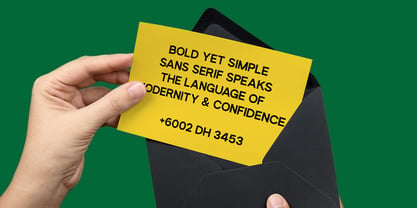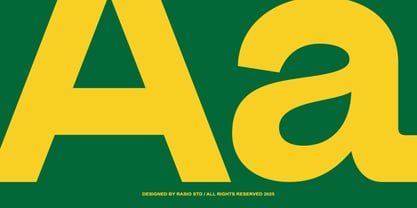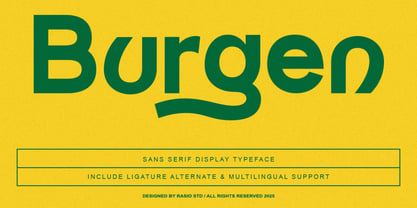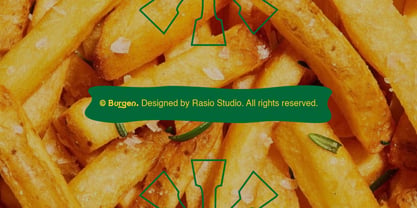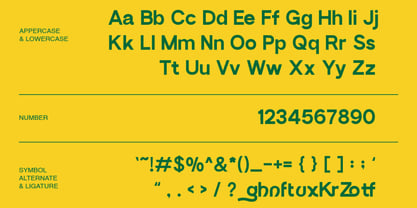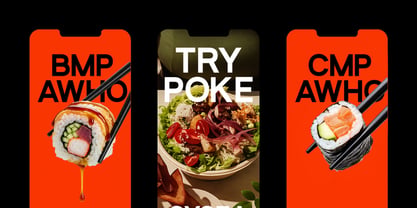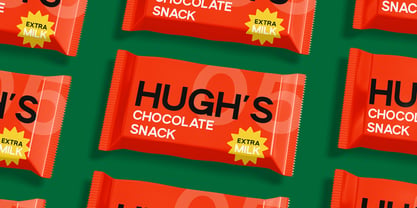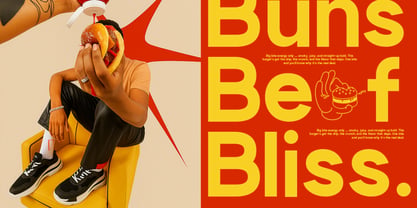
Burgen
by Rasio Studio
The Burgen Font Family was designed by Fajar Indra and published by Rasio Studio. Burgen contains 1 styles. More about this family
Burgen is a bold and modern sans serif display typeface that mixes geometric confidence with playful personality. Designed with unique character alternates and ligatures, it brings versatility and flair to any layout. Featuring clean uppercase and lowercase letters, multilingual support, numbers, and full punctuation. Burgen is ideal for contemporary branding, food packaging, posters, and editorial headlines. Its quirky curves and confident stance make it stand out in both print and digital use. Whether you're building a strong identity or adding character to your message, Burgen delivers with clarity and style.
Designers: Fajar Indra
Foundry: Rasio Studio